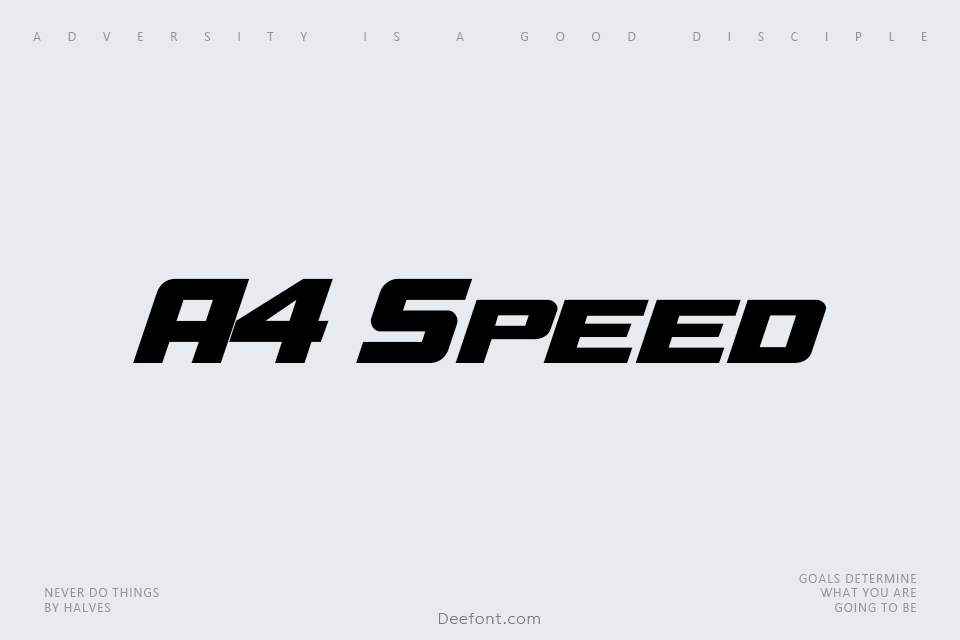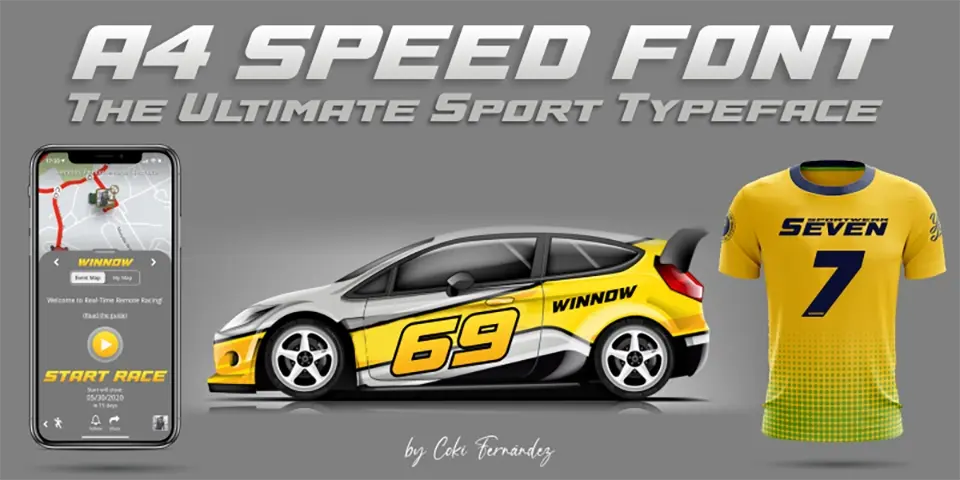
A4 Speed Font
A4 Speed is a modern techno display font designed for eye-catching headlines and vibrant creative work. The bold geometric shapes and streamlined forms make it ideal for sports, automotive, and technology-themed branding. Its futuristic and dynamic character brings a high-impact visual style to posters, logos, and digital graphics. Free for personal use, A4 Speed suits a wide range of creative needs where speed, excitement, and innovation are essential.
Designed by:Coki Fernandez